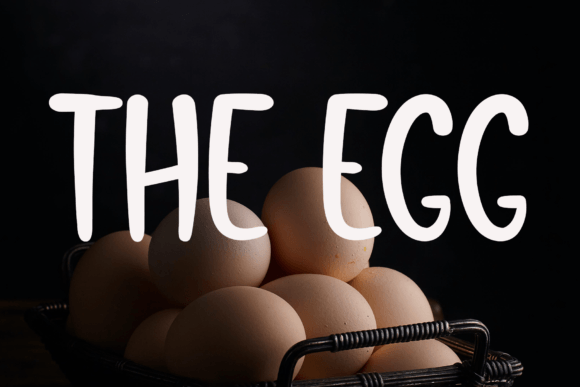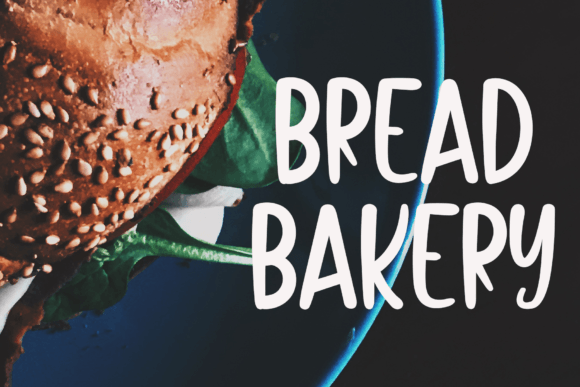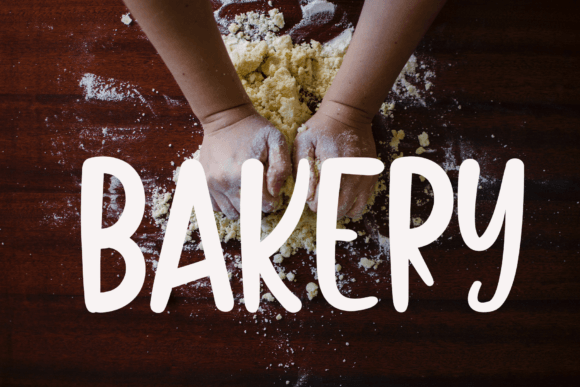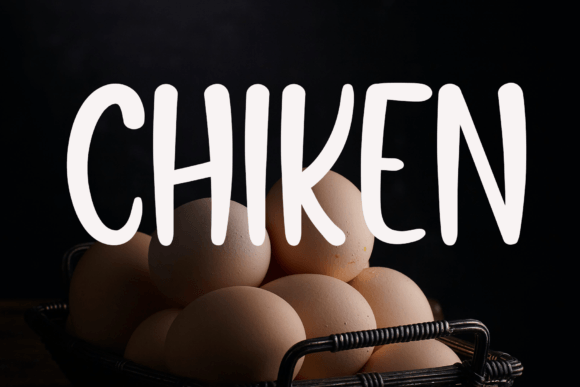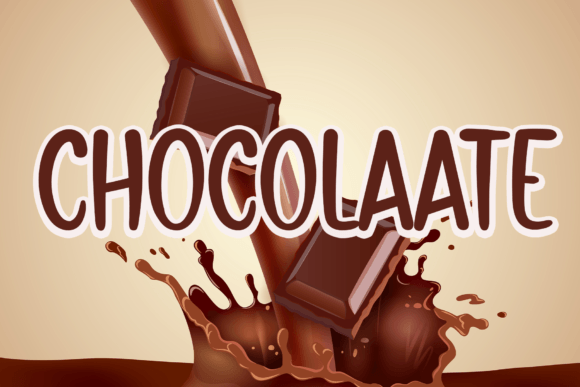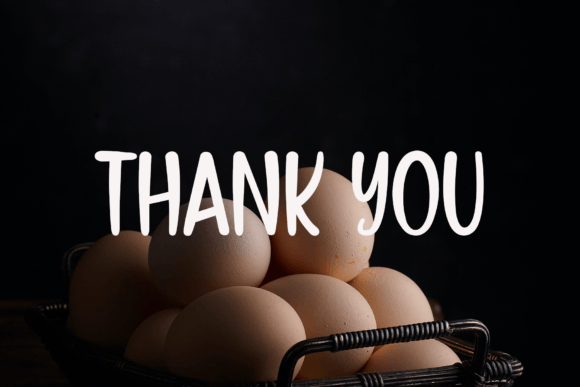
Easter Flower Font: The Perfect Addition to Your Design Arsenal
Are you looking for a font that can add a touch of whimsy and playfulness to your designs? Look no further than the Easter Flower Font! This fun and friendly handwritten font is perfect for a variety of projects, from crafts and digital design to presentations and greeting cards. In this article, we’ll take a closer look at the Easter Flower Font and explore its features, benefits, and uses.
What is Easter Flower Font?
Easter Flower Font is a handwritten font designed to evoke the feeling of springtime and new beginnings. Its playful and carefree design makes it perfect for projects that require a personal touch. The font features beautiful, flowing lines and a charming aesthetic that’s sure to delight. Whether you’re creating a digital design, crafting a handmade project, or making a greeting card, Easter Flower Font is the perfect choice.
Features of Easter Flower Font
So, what makes Easter Flower Font so special? Here are just a few of its key features:
- Handwritten design: Easter Flower Font is a handwritten font, which gives it a personal and unique feel.
- Playful aesthetic: The font features a playful and carefree design that’s perfect for springtime projects.
- Versatile: Easter Flower Font can be used for a variety of projects, from digital design to crafting and handmade projects.
- Easy to read: Despite its playful design, Easter Flower Font is easy to read and understand.
Benefits of Using Easter Flower Font
So, why should you choose Easter Flower Font for your next project? Here are just a few benefits of using this font:
- Adds a personal touch: Easter Flower Font adds a personal touch to your designs, making them more unique and engaging.
- Perfect for springtime projects: The font’s springtime aesthetic makes it perfect for Easter, Mother’s Day, and other springtime projects.
- Versatile: The font can be used for a variety of projects, from digital design to crafting and handmade projects.
Uses for Easter Flower Font
So, what can you use Easter Flower Font for? Here are just a few ideas:
- Crafts: Easter Flower Font is perfect for handmade crafts, such as card making, scrapbooking, and DIY projects.
- Digital design: The font can be used for digital design projects, such as creating social media graphics, blog posts, and website headers.
- Presentations: Easter Flower Font is a great choice for presentations, adding a touch of whimsy and playfulness to your slides.
- Greeting cards: The font is perfect for creating greeting cards, invitations, and other paper crafts.
Tips for Using Easter Flower Font
Here are a few tips for using Easter Flower Font:
- Use it for headings and titles: Easter Flower Font is perfect for headings and titles, adding a touch of whimsy and playfulness to your designs.
- Pair it with other fonts: The font pairs well with other fonts, such as sans-serif fonts and script fonts.
- Experiment with colors: Easter Flower Font looks great in a variety of colors, from bright and bold to pastel and soft.
Easter Flower Font is a fun and friendly handwritten font that’s perfect for a variety of projects. Its playful aesthetic and versatile design make it a great choice for designers and crafters alike. Whether you’re creating a digital design, crafting a handmade project, or making a greeting card, Easter Flower Font is sure to become your go-to font. So why not give it a try and see what amazing projects you can create?